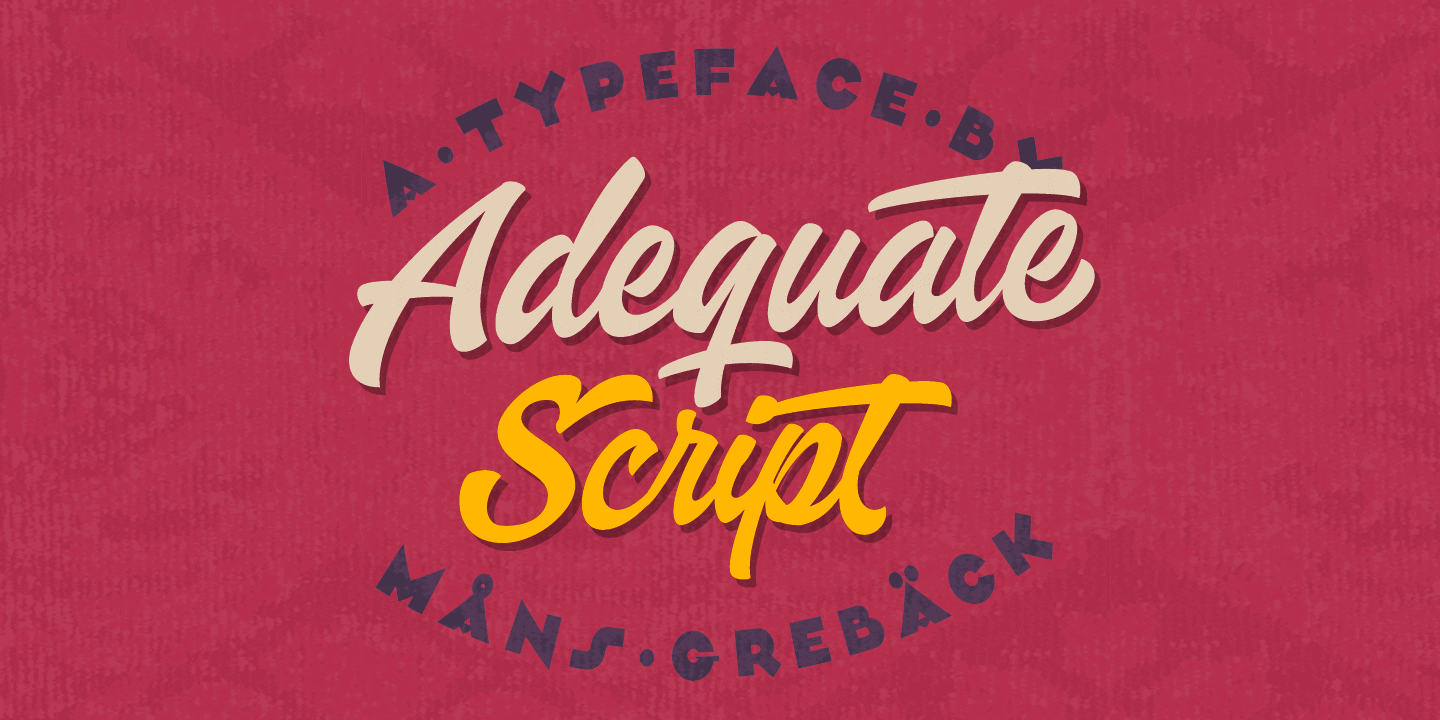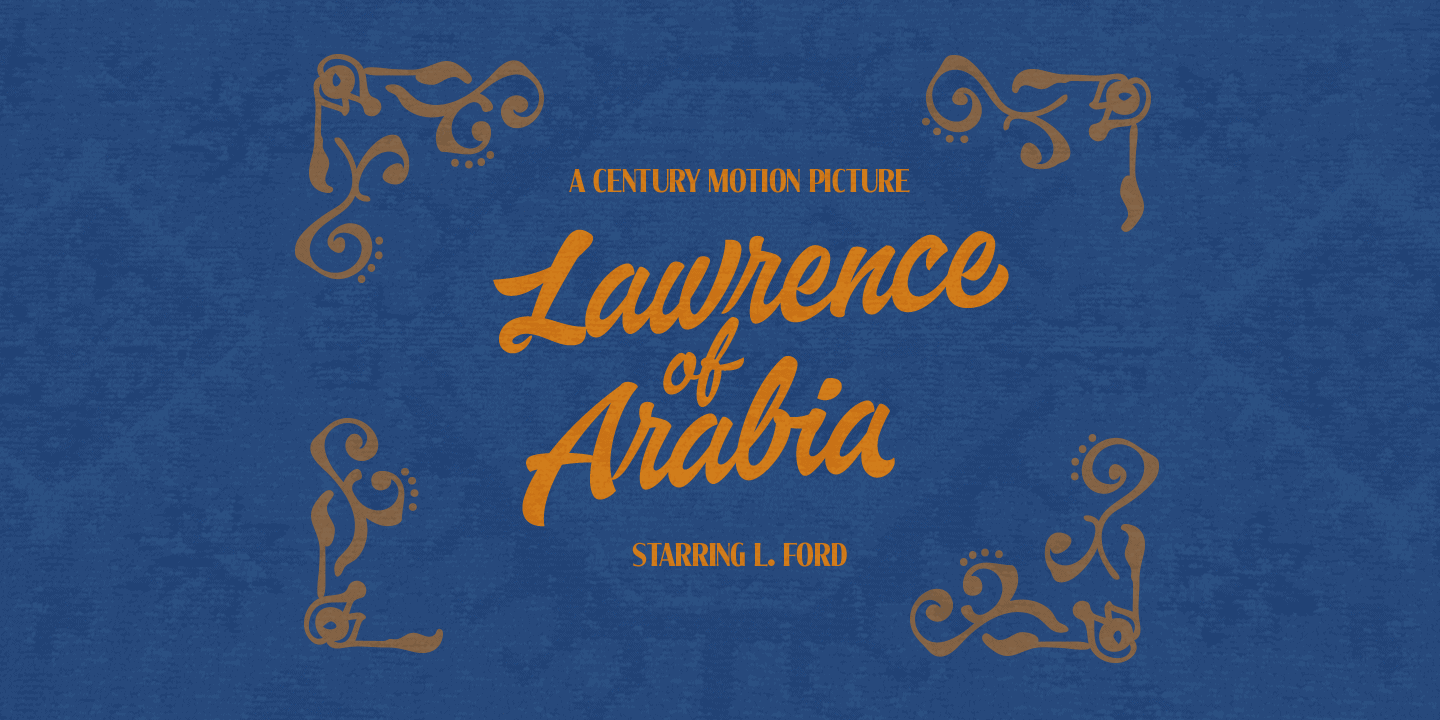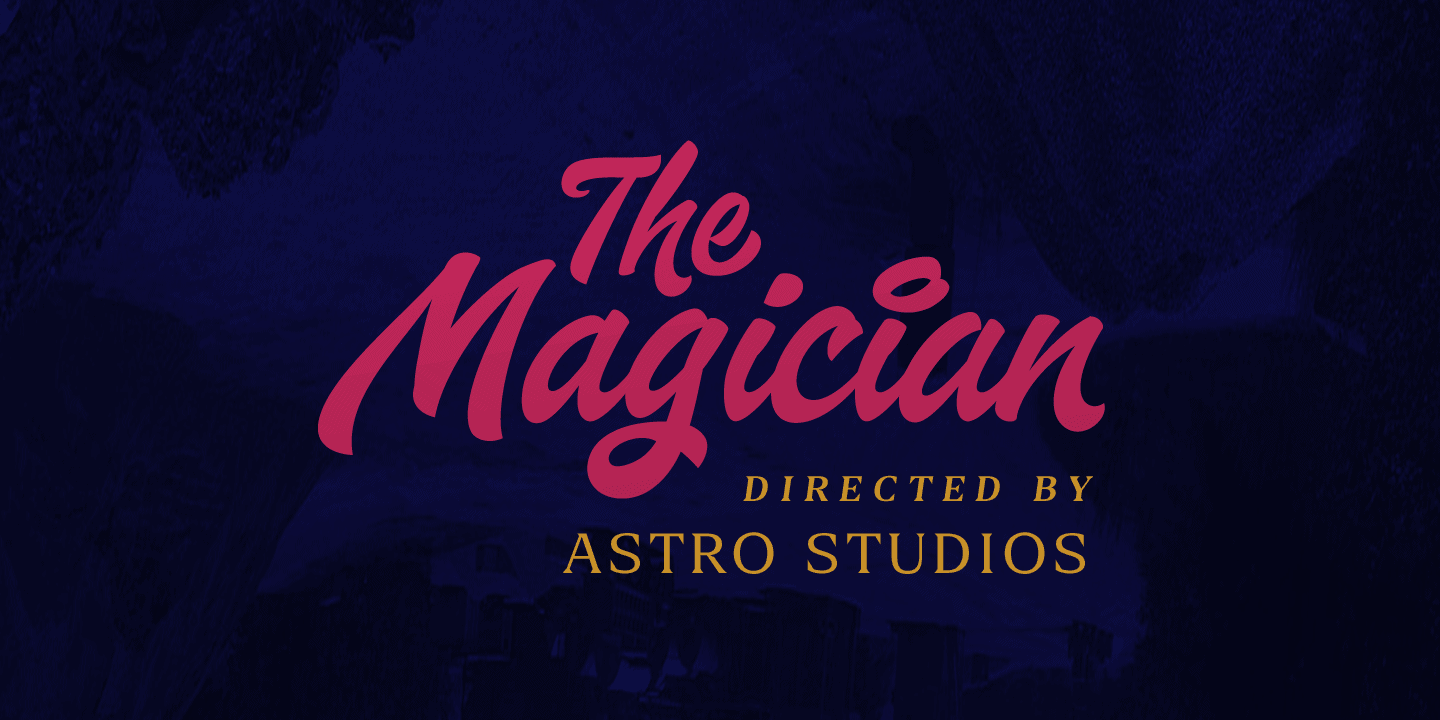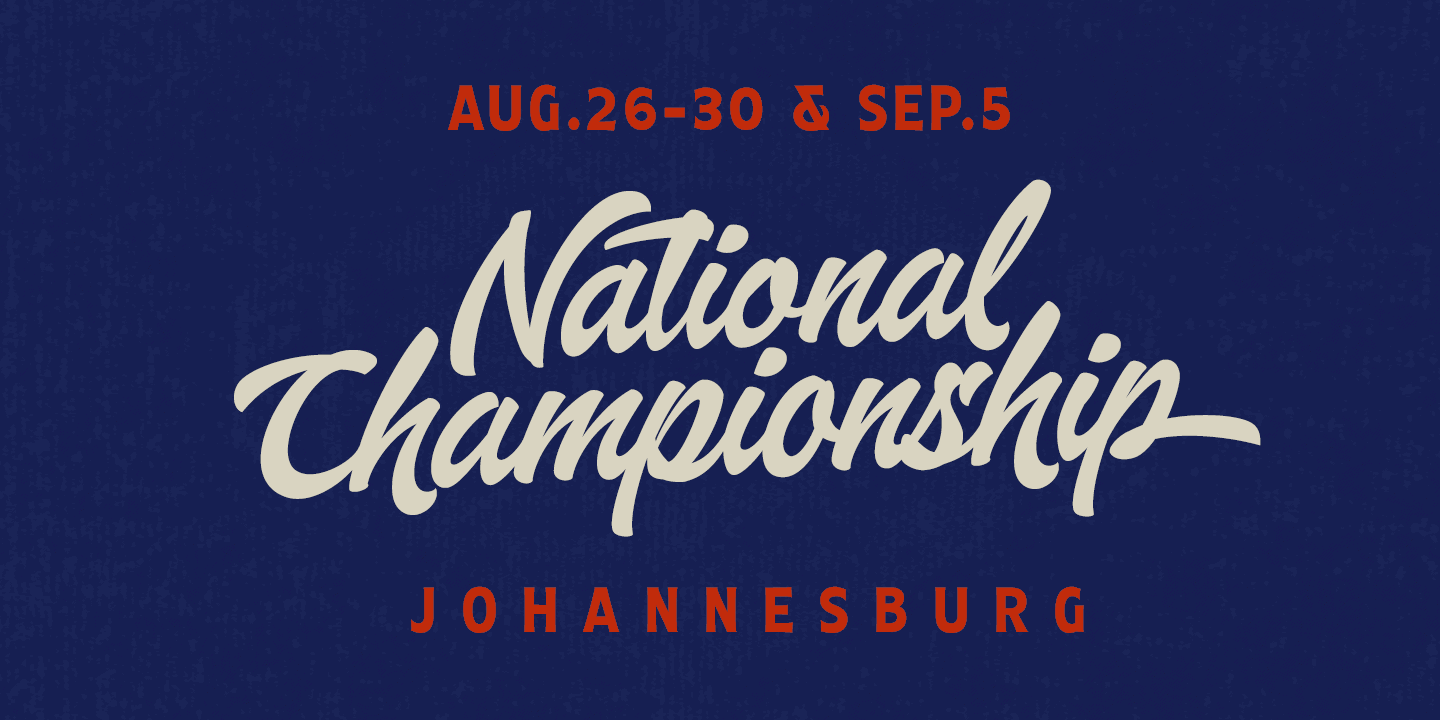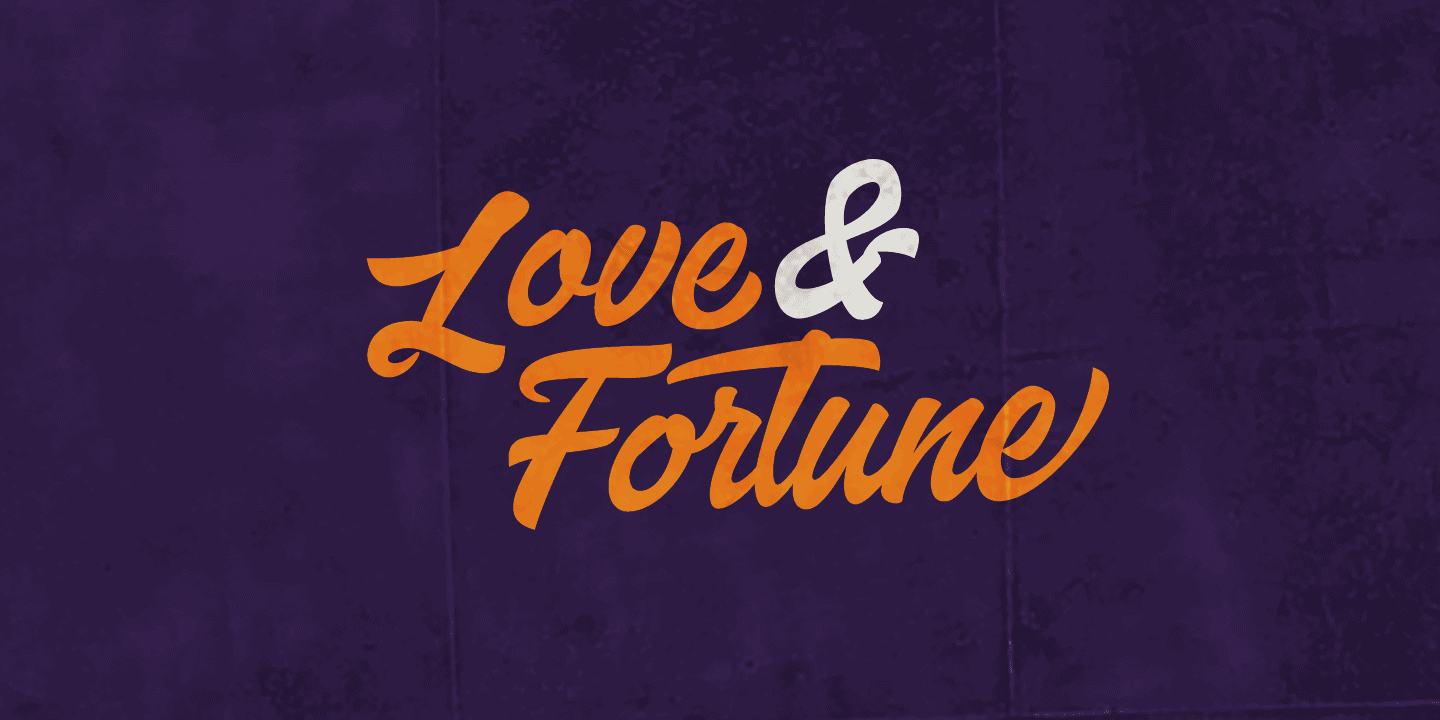
Adequate Script
Aquate Script is a professional brush script typeface. It displays a fast but confident movement, with bold curves contrasting sharp corners. With it’s multiple alternate alphabets, it is greatly adaptable and really gives a logo or headline the impression of being a custom, hand-painted type.
The font supports all European and Latin based languages, as well as all characters you’ll ever need. In additional to stylistic and contextual alternates, the typeface contains ligatures and a full set of swash glyphs.